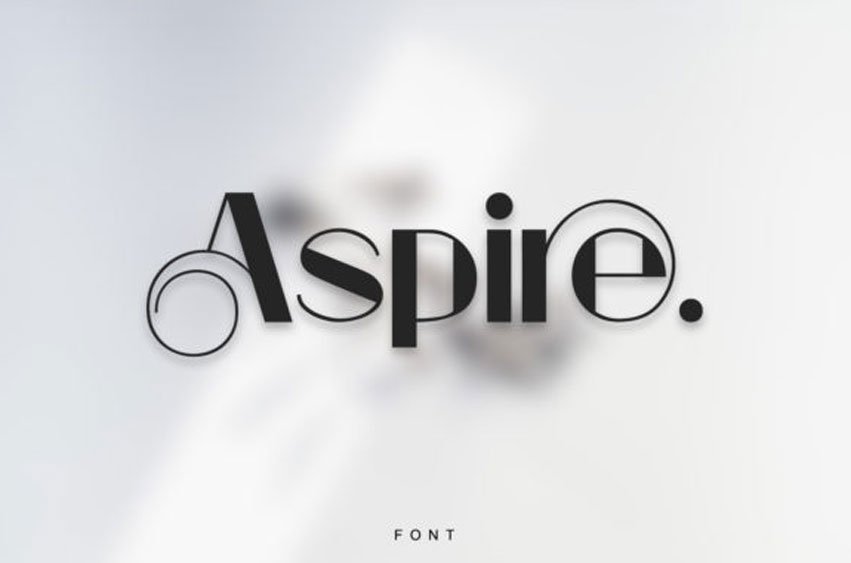
Aspire Display Font is an elegant and distinct display font.
This font is ideal for writing web designs, business cards, or pretty much anything else that requires a modern touch.